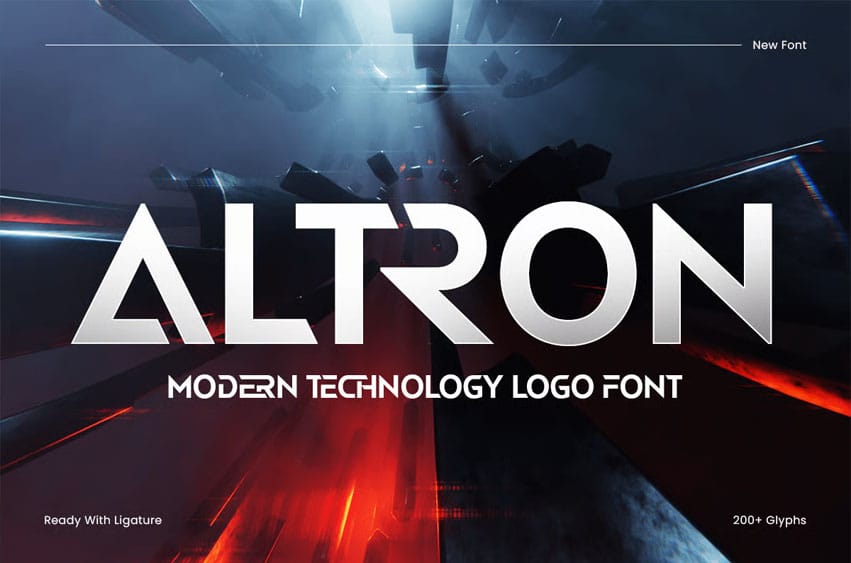
Altron Font Modern Technology Logo Font Altron is a futuristic display font designed for tech-inspired branding and modern digital design. With sleek geometric shapes and sharp precision, Altron delivers a clean, high-tech aesthetic perfect for logos, startups, UI design, gaming, and sci-fi projects.
This modern technology logo font captures the essence of innovation and progress, making it ideal for companies in the software, robotics, AI, or electronics industries. Whether you’re designing a modern brand identity, futuristic interface, or digital poster, Altron ensures your typography looks cutting-edge and professional.
Altron – Modern Technology Logo Font Features:
- Futuristic and geometric letterforms for modern design appeal
- Includes uppercase, lowercase, numbers, and punctuation
- Optimized kerning and OpenType features for smooth performance
- Clean readability across print and screen applications